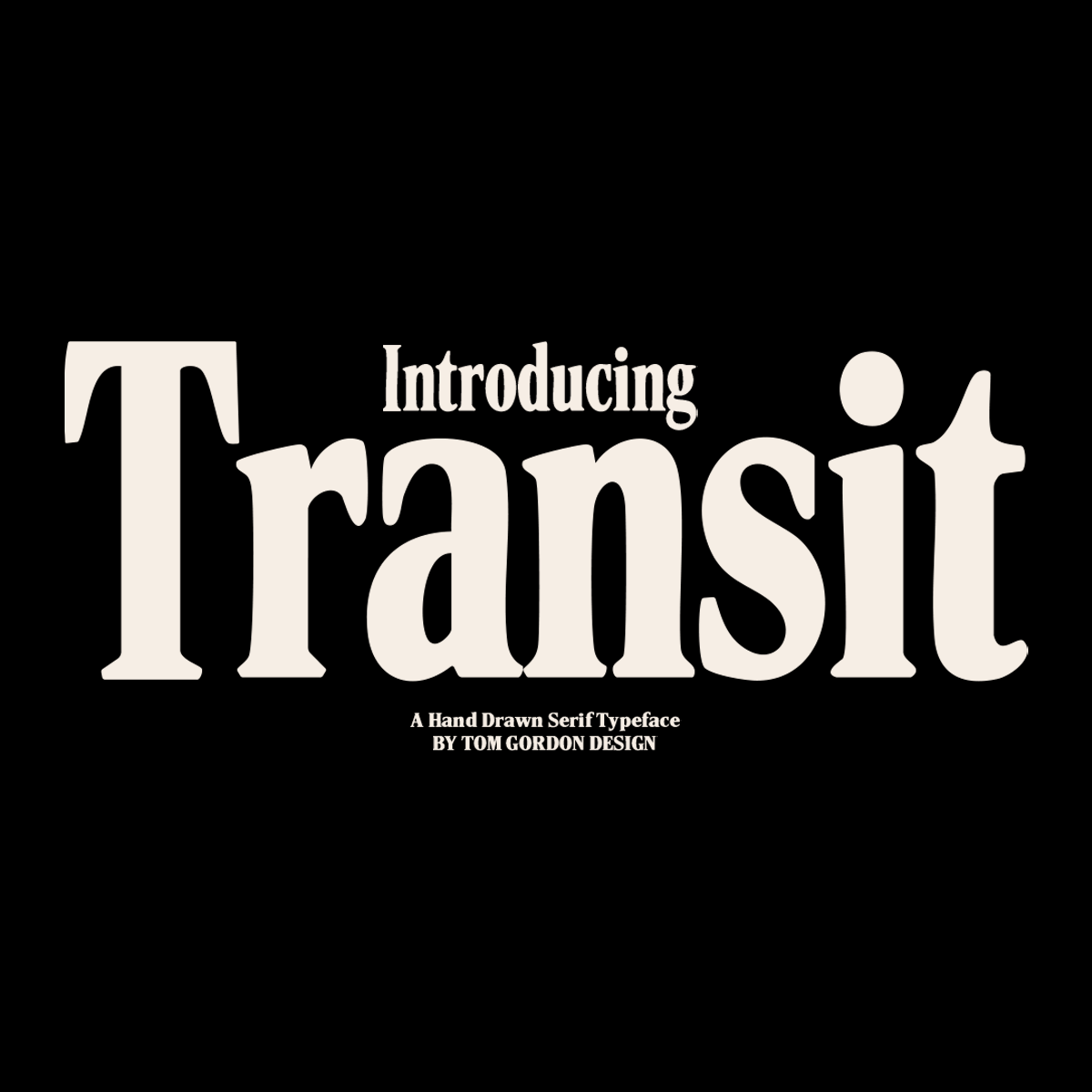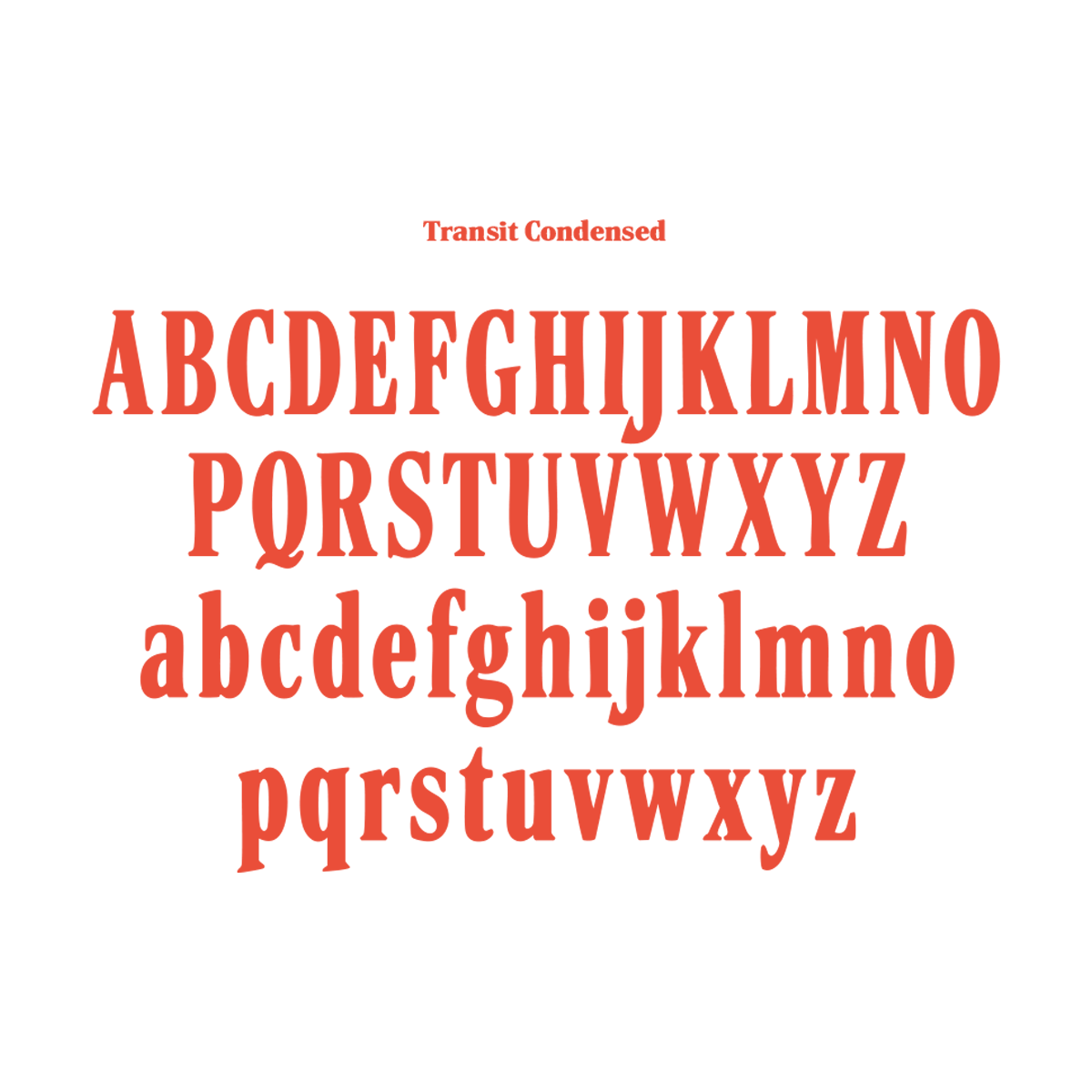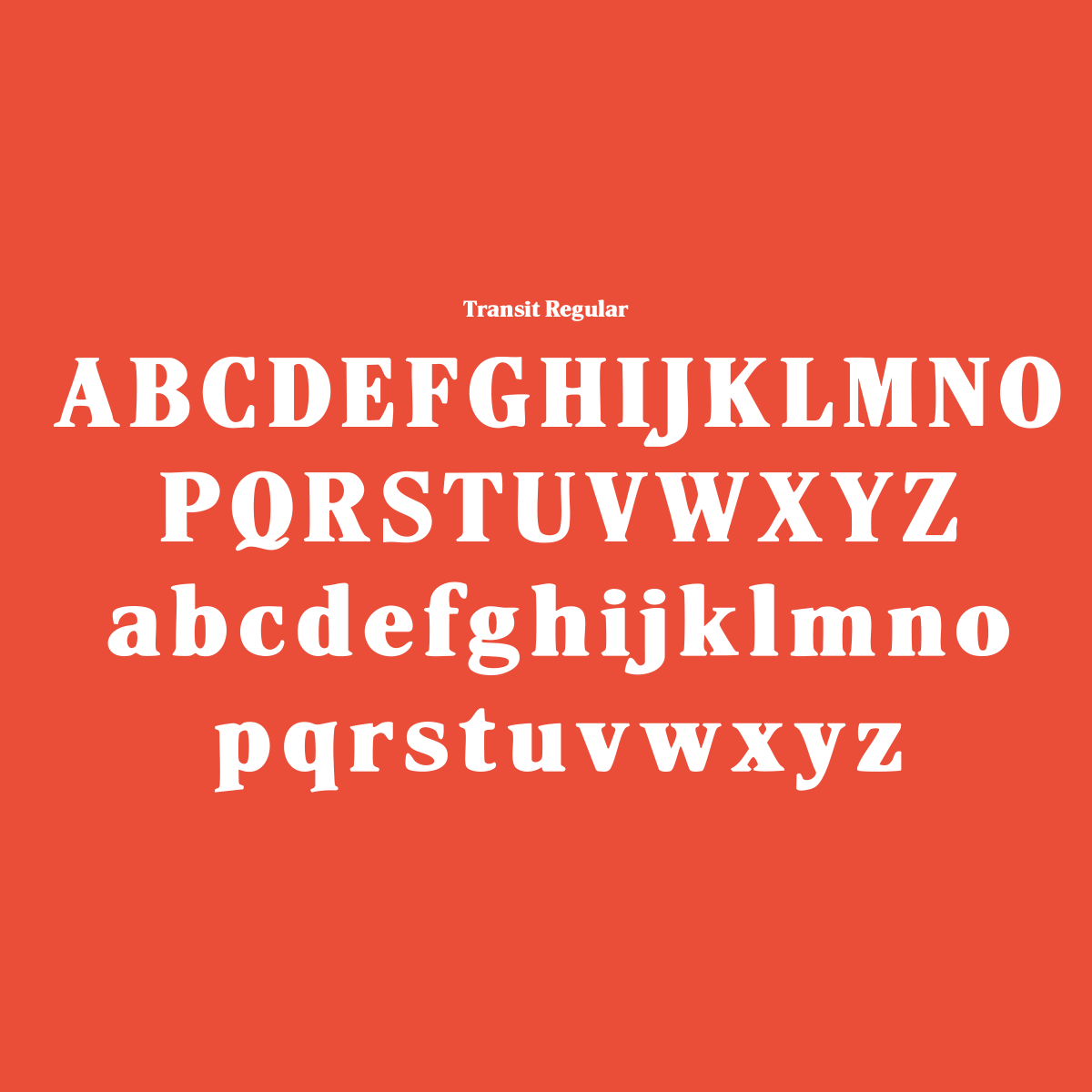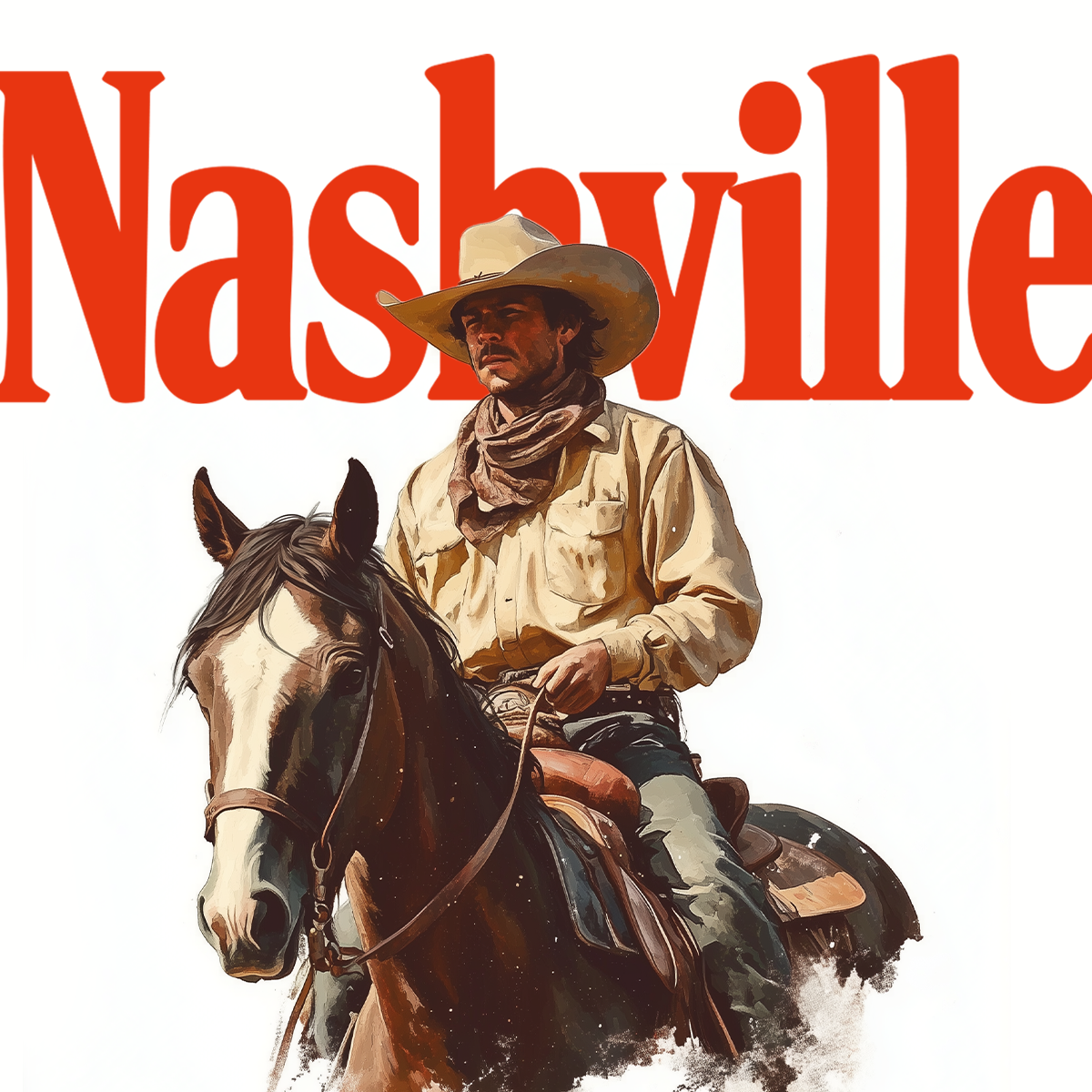
Inspired by vintage western typefaces and the Marlboro cigarettes logo this font is great for apparel design!
Condensed and Regular font weights
Full Uppercase & Lowercase Alphabets
Numbers and essential symbols